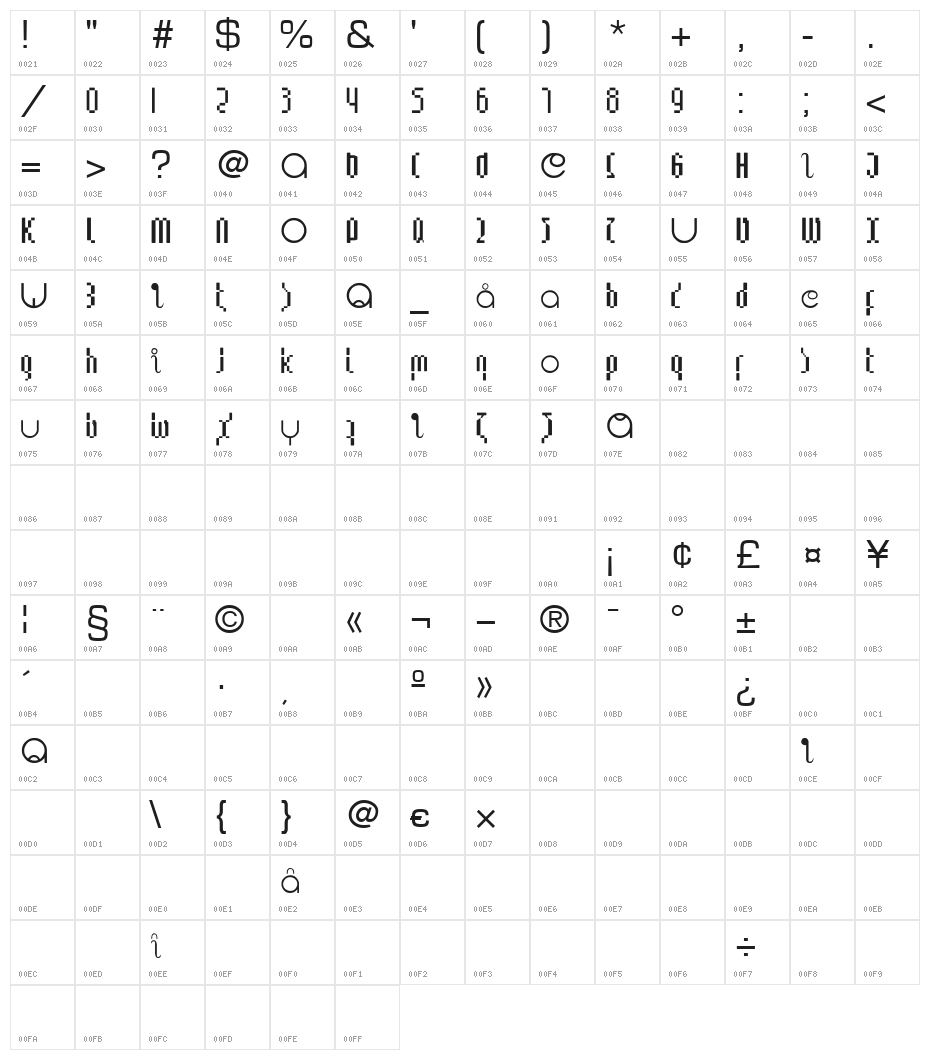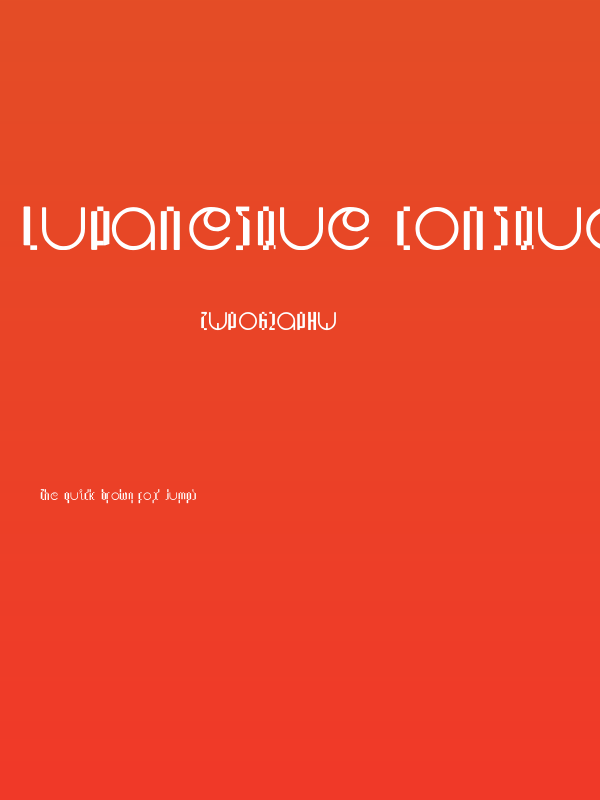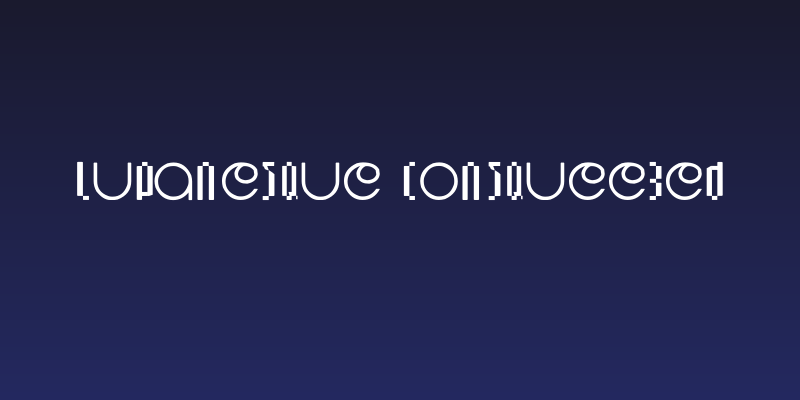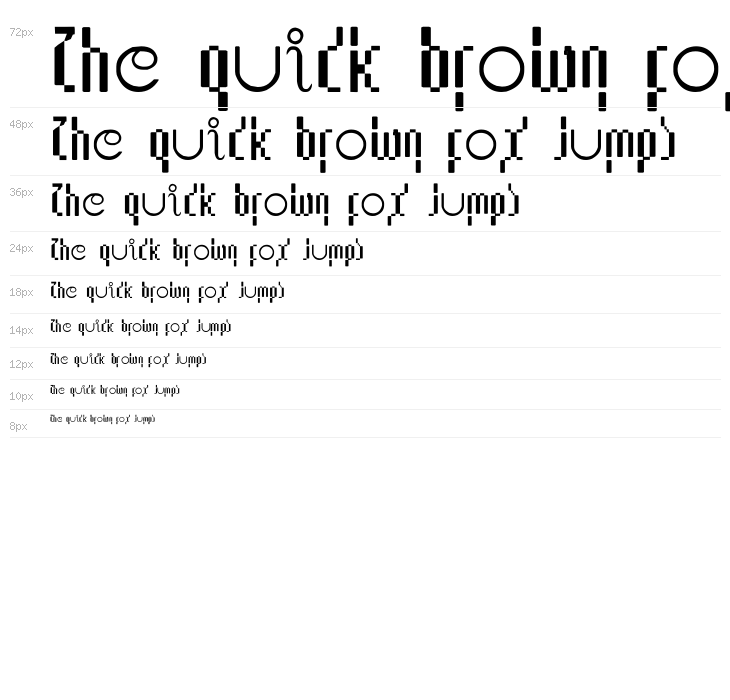
Lupanesque consqueezed Font
Lupanesque consqueezed Description
This font exhibits a unique blend of geometric and pixelated elements, creating a distinct and modern aesthetic. The characters are composed of bold, block-like structures with rounded edges, giving them a digital and futuristic appearance. The uppercase letters maintain a consistent height and width, while the lowercase letters introduce slight variations in form, adding a playful touch. Numbers and special characters follow the same design principles, ensuring uniformity across the typeface. The overall style is reminiscent of early digital displays, making it ideal for projects that require a retro or tech-inspired look.
| Overall Style | Modern, Futuristic |
| Use Case | Headlines, Logos, Digital Art |
| Proposed Projects | Ideal for tech-themed designs, retro video game graphics, digital art projects, and futuristic branding. |